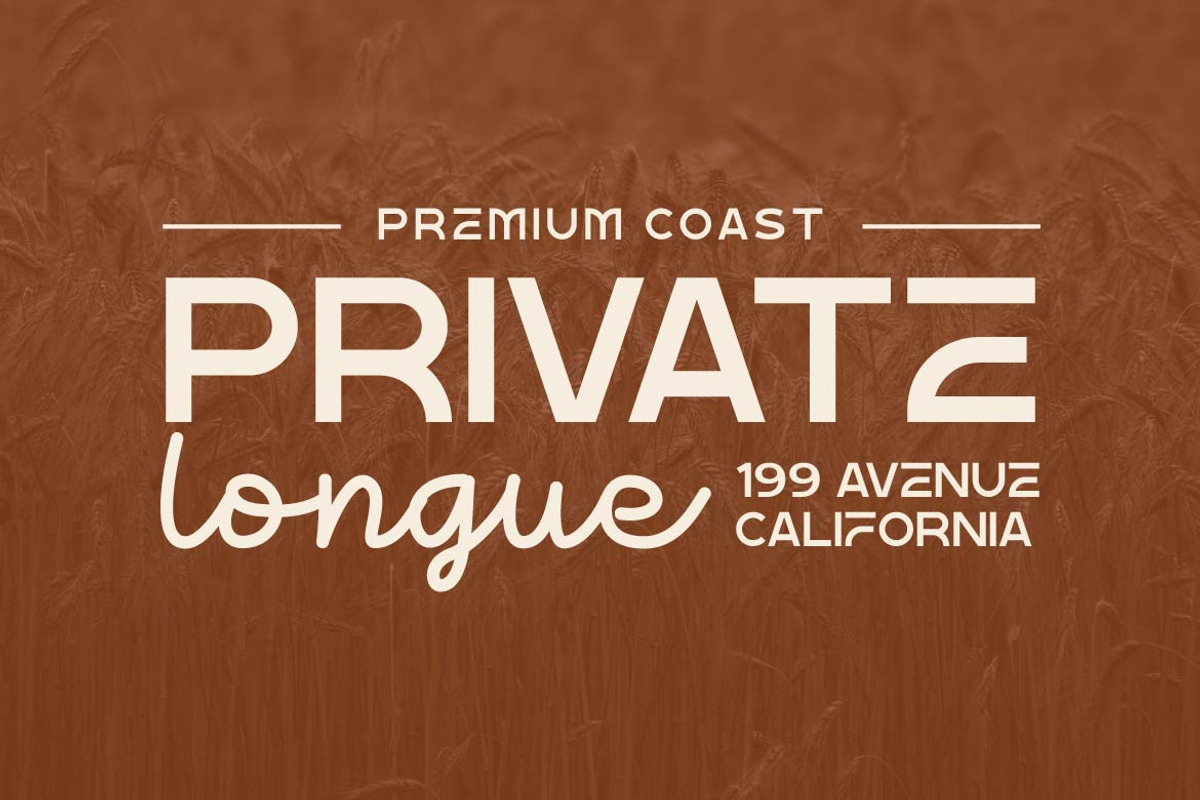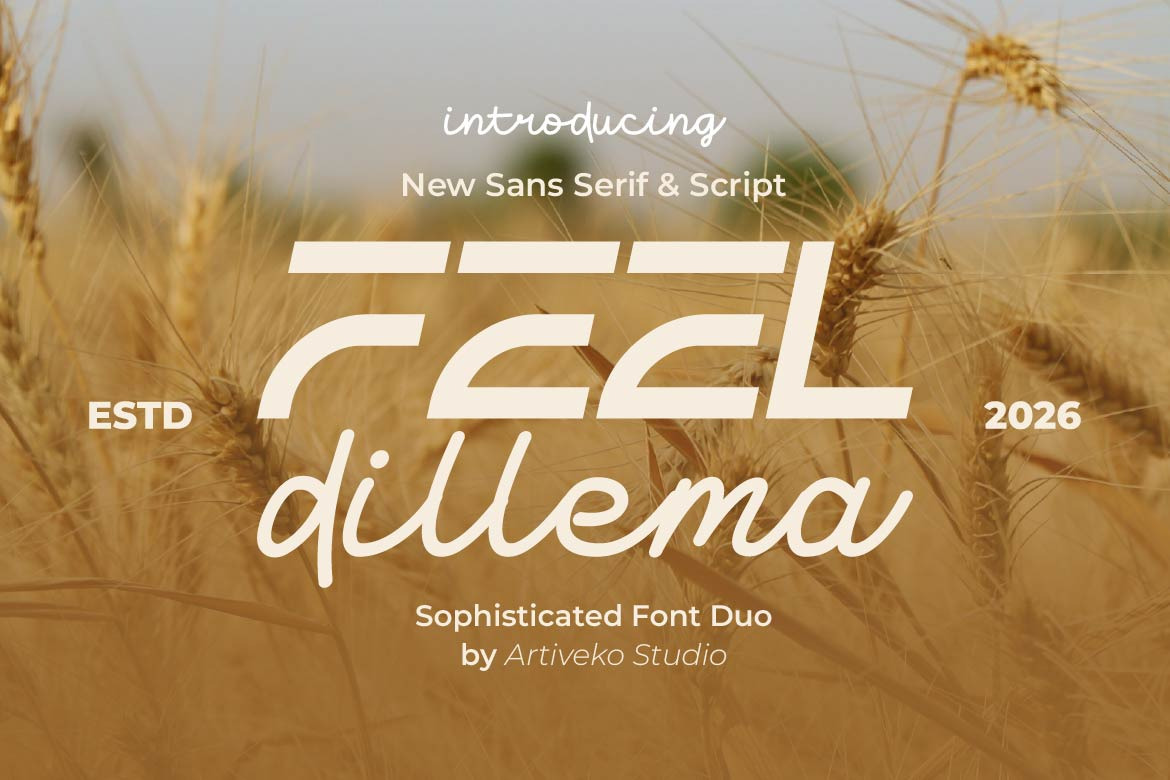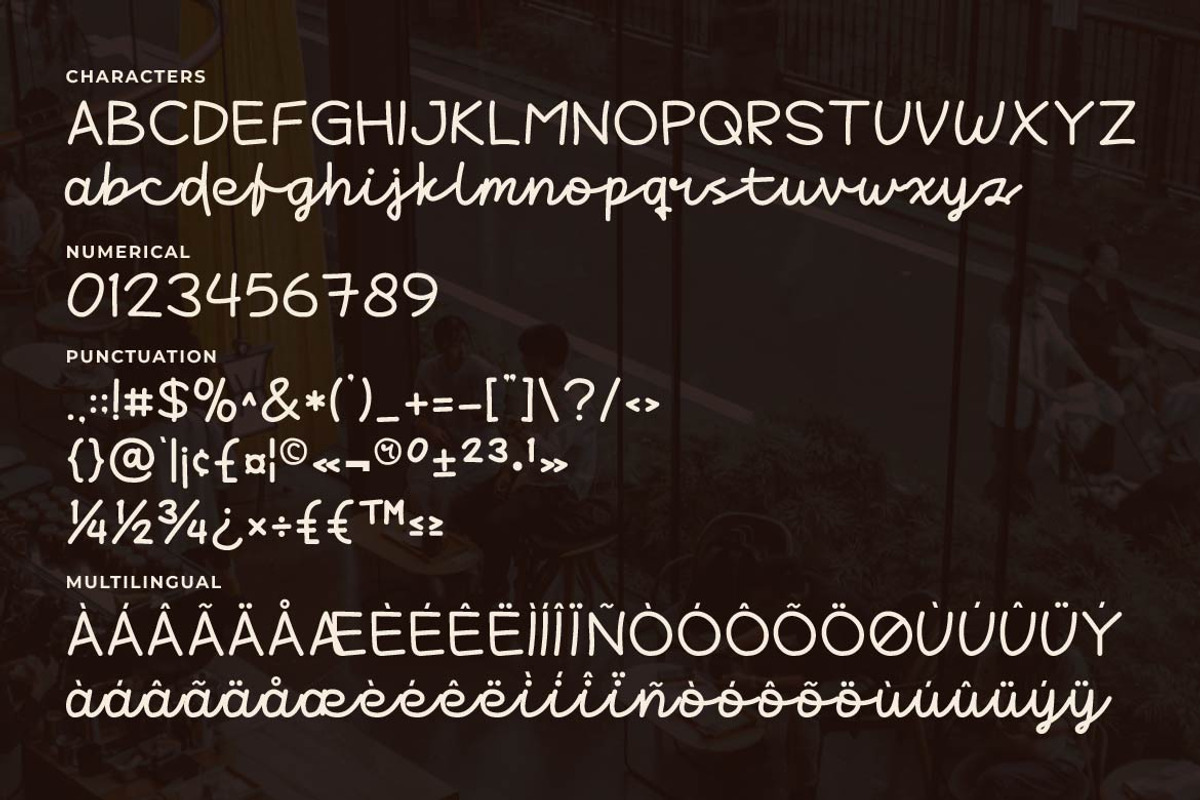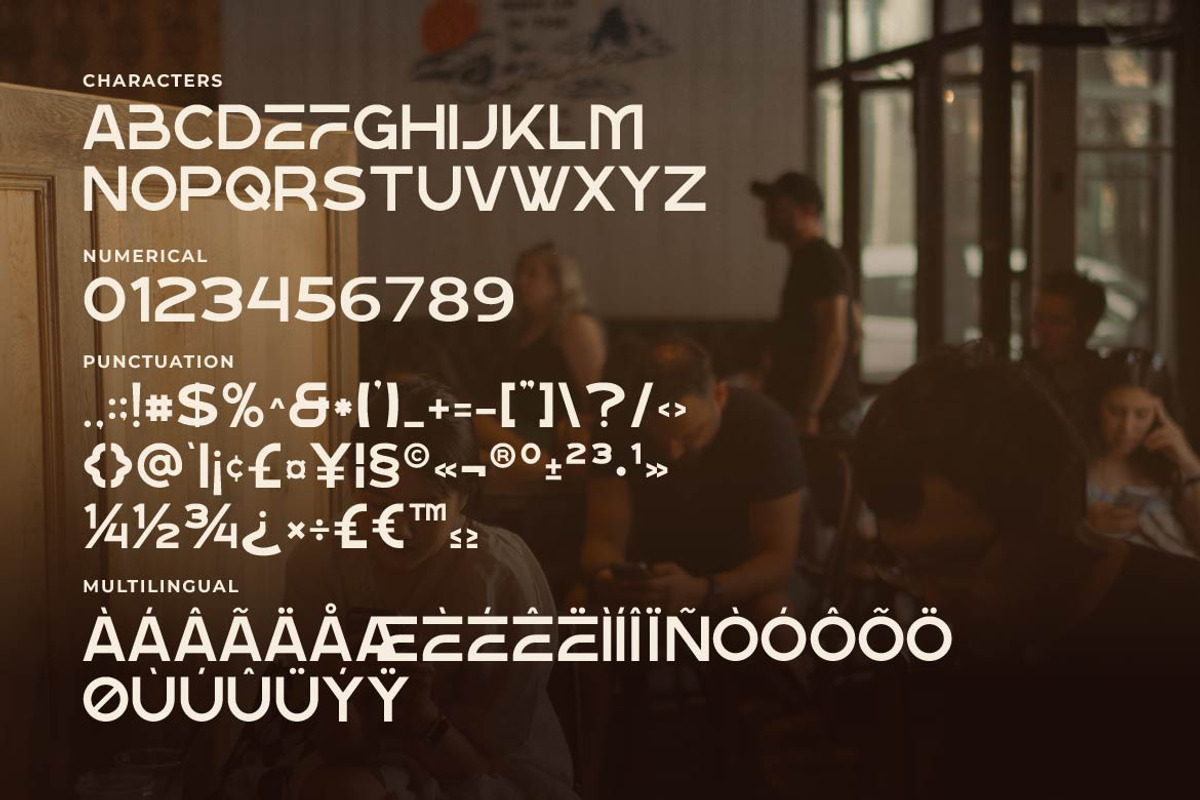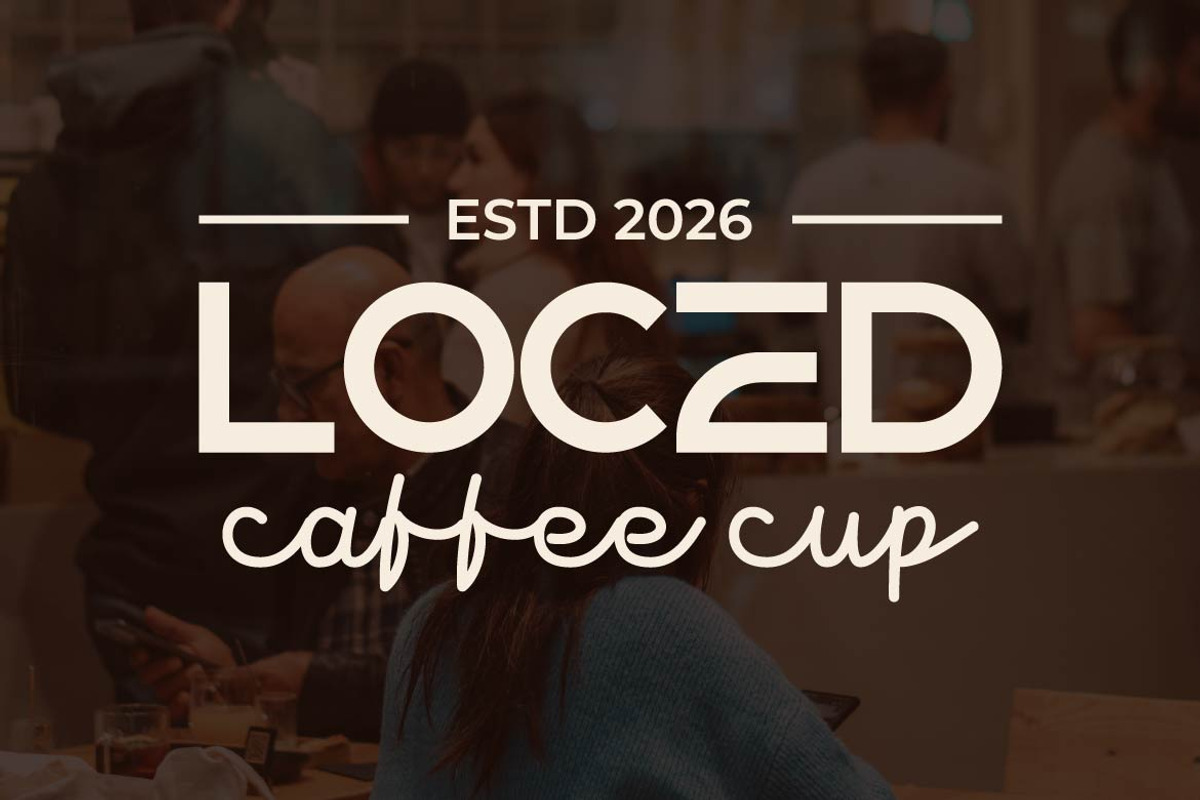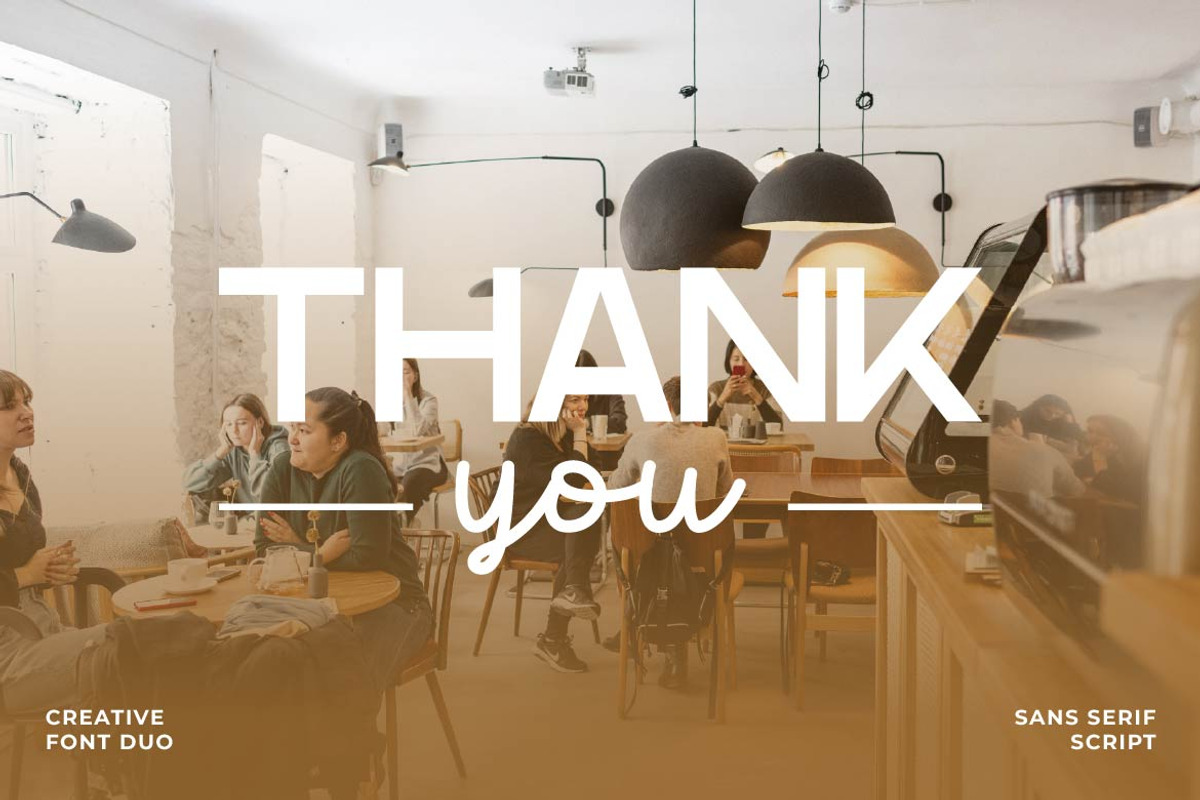
Feel Dillema – Vacation Font Duo
The perfect design often begins with the perfect pairing.
Feel Dillema Duo is a carefully crafted font duo that combines the clean confidence of a modern sans serif with the natural elegance of a handwritten script. Together, they create beautiful visual harmony, making it easy to design sophisticated layouts without searching for matching fonts.
Whether you're building a memorable brand identity, designing wedding invitations, creating stylish social media content, or developing premium packaging, Feel Dillema Duo delivers the perfect balance between professionalism and personality.
The sans serif provides clarity, structure, and modern appeal, while the flowing script introduces warmth, movement, and a personal touch. This versatile combination allows designers to create eye-catching logos, product packaging, editorial layouts, café menus, fashion campaigns, beauty branding, and digital content with effortless consistency.
Designed for today's creators, entrepreneurs, and creative professionals, Feel Dillema Duo adapts beautifully across print and digital media, helping every project feel polished, expressive, and memorable.
Feel Dillema Duo isn't simply two fonts—it's a complete typographic partnership designed to tell your story with elegance and personality.
Ton of glyphs